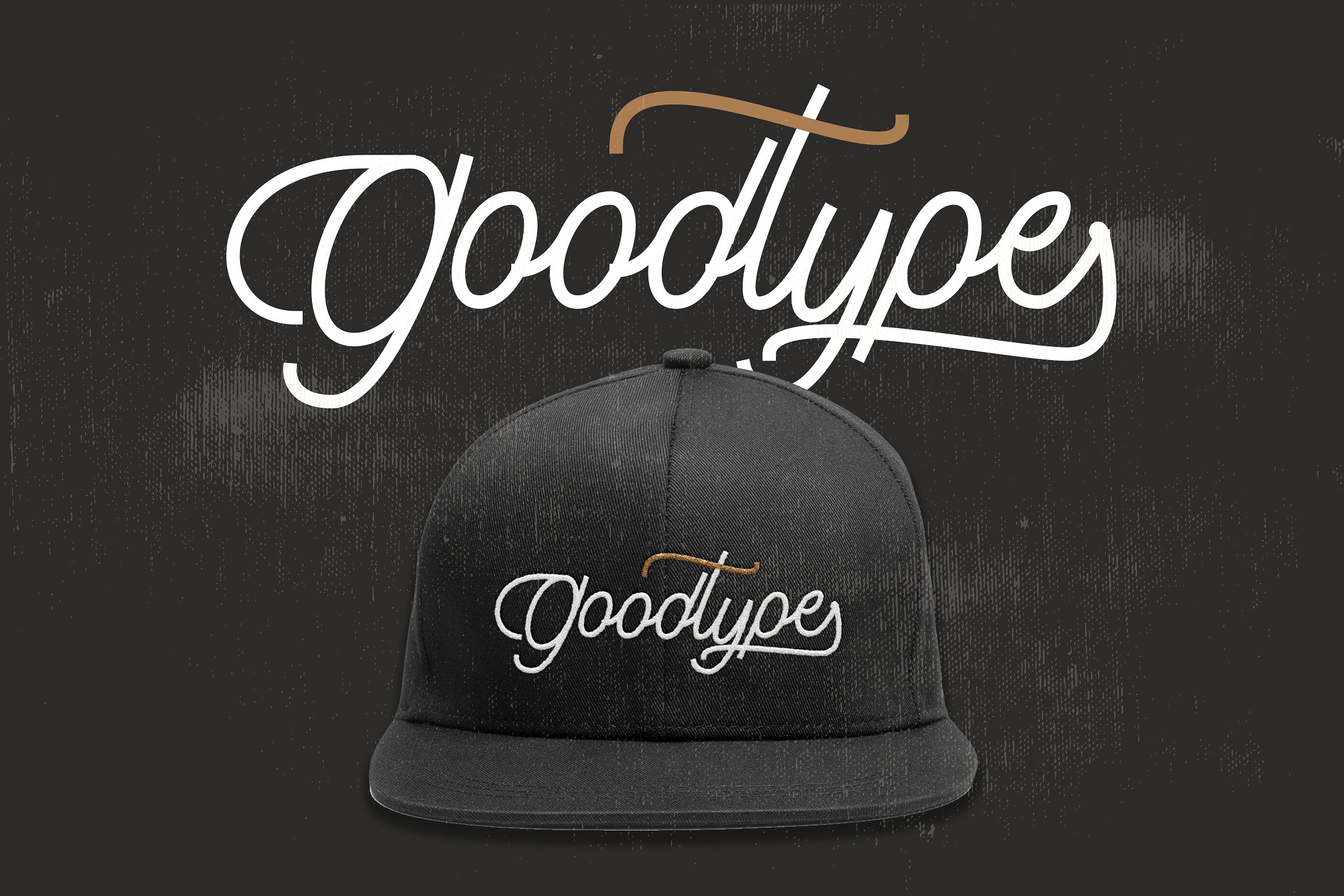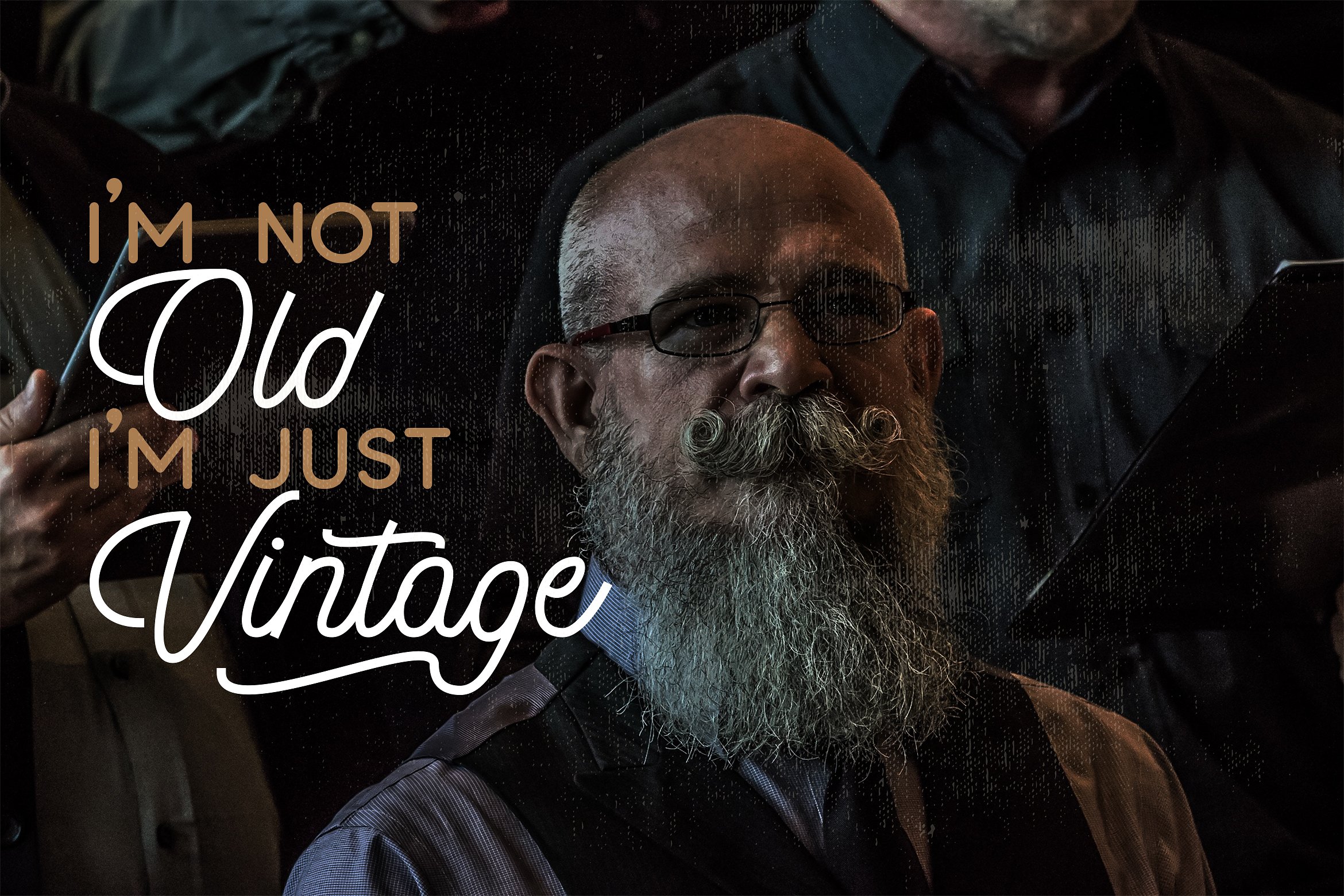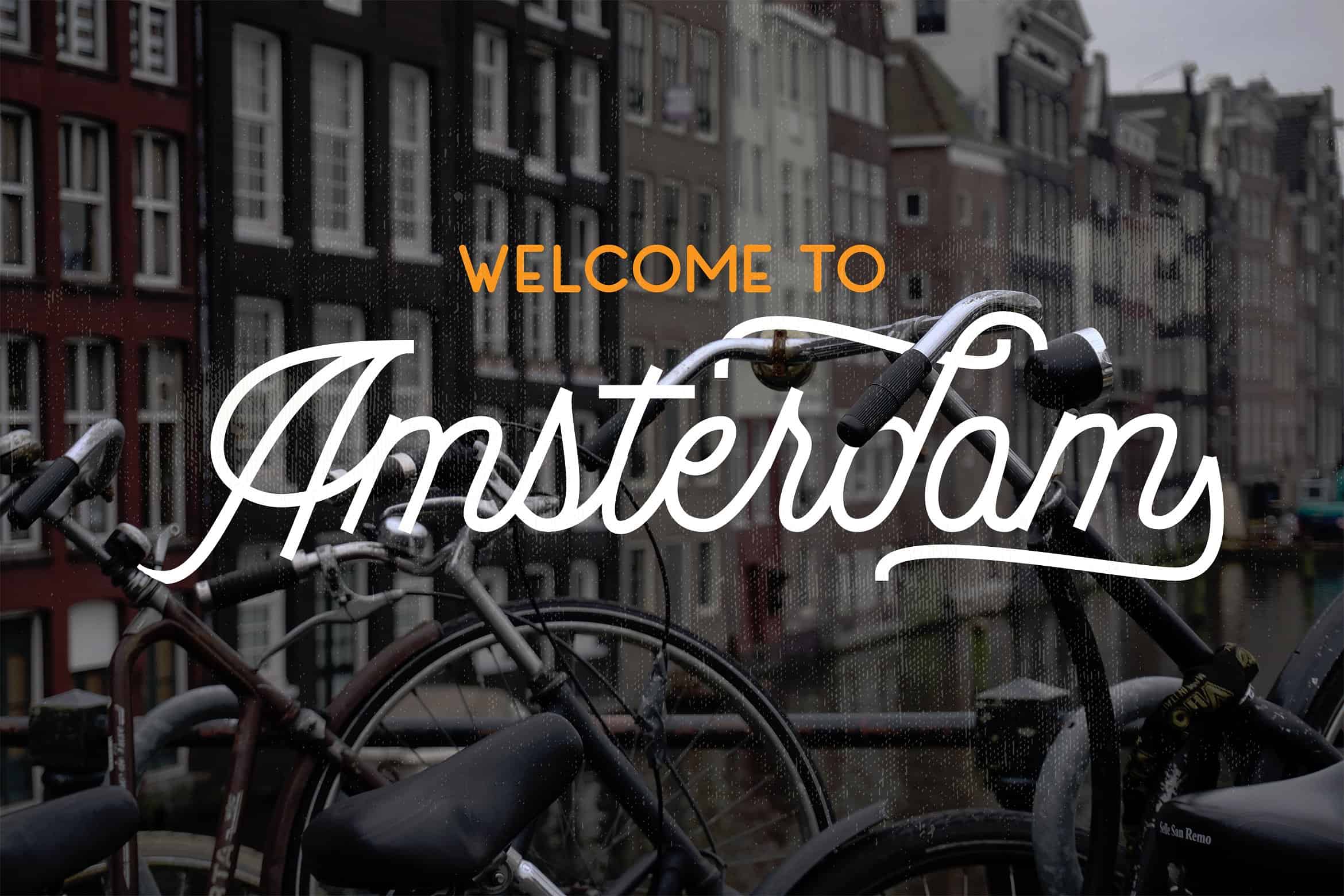
Dingbod Sript and Sans Font
Dingbod Sript and Sans Font – Free Demo
Thank you for looking this font. Introducing Dingbod Font! Dingbod Sript and Sans Font is a font display is made by hand, inspired by classic posters. comes with uppercase, lowercase, numerals, punctuations and so many variations on each characters include opentype alternates, common ligatures and also additional swash to let you customise your designs. Perfect to use for Logotype, Letterhead, Poster, Apparel Design, Label and etc.